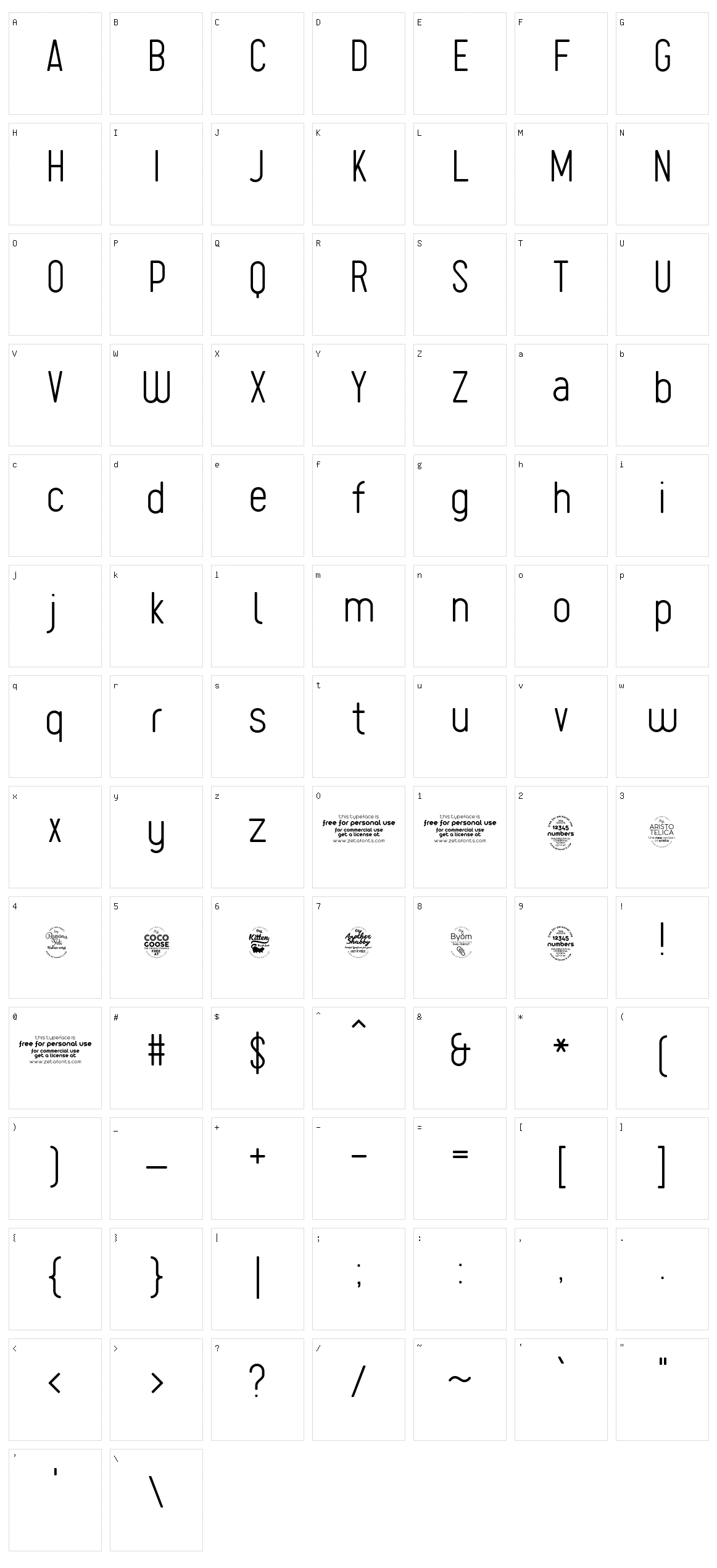
Created for a skateboard shop logo, Sugo is a headline font with a blocky shape, a freestyle finish and a street attitude. Its high readibility and contemporary feel make it the right typeface to mix personality and dynamism.